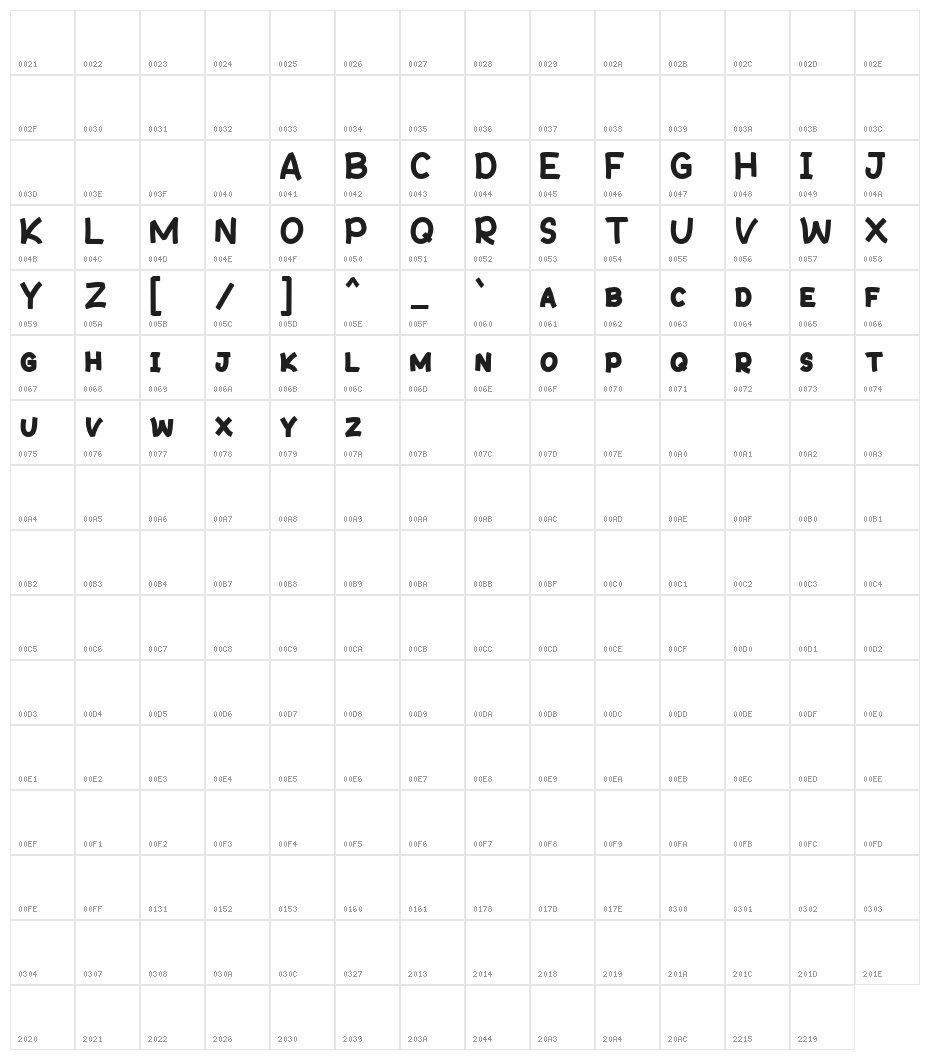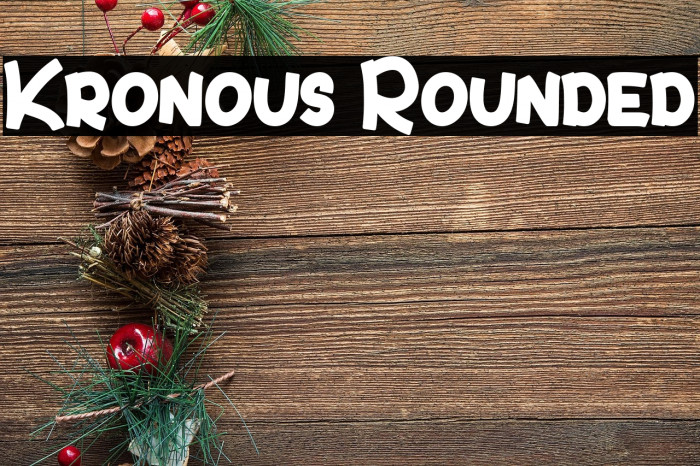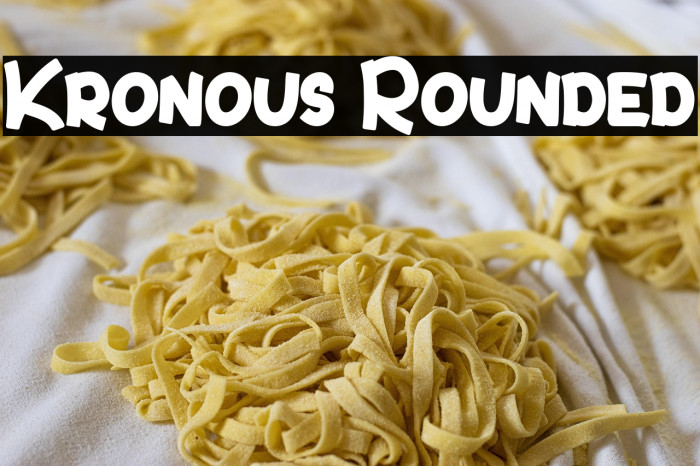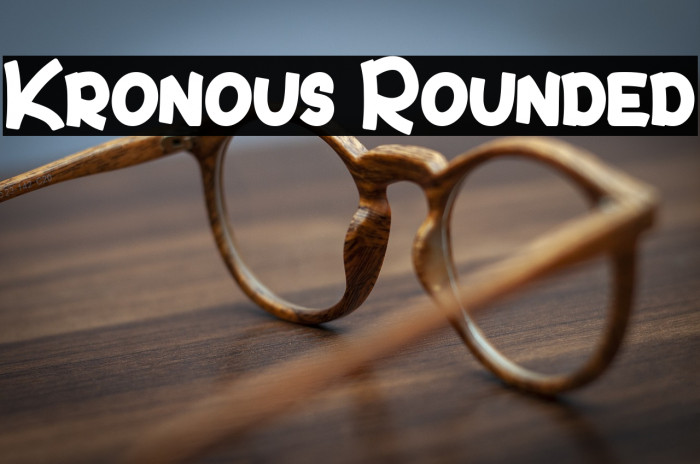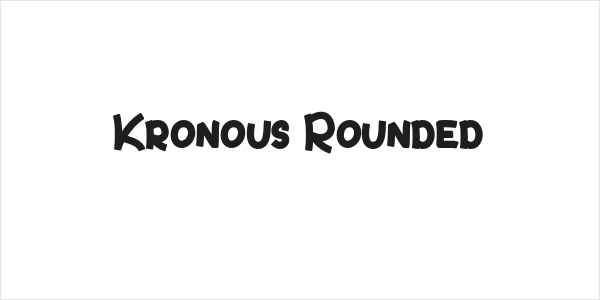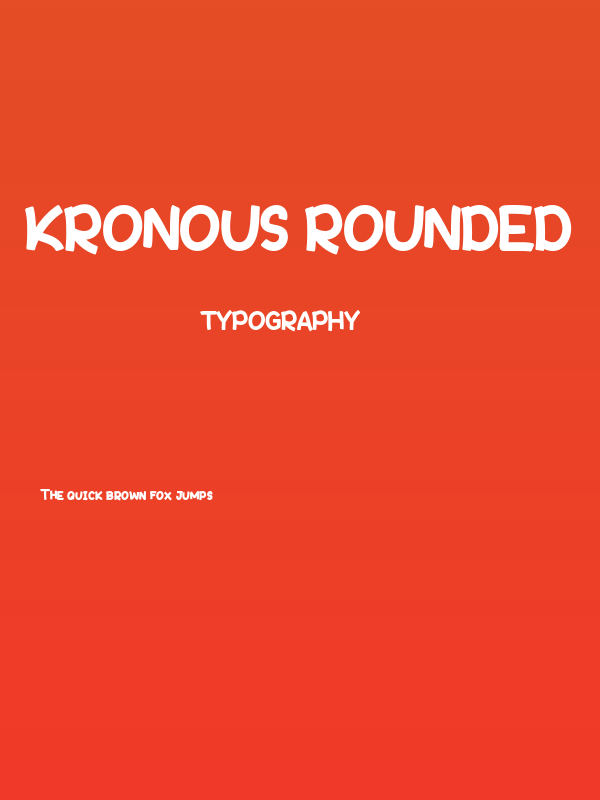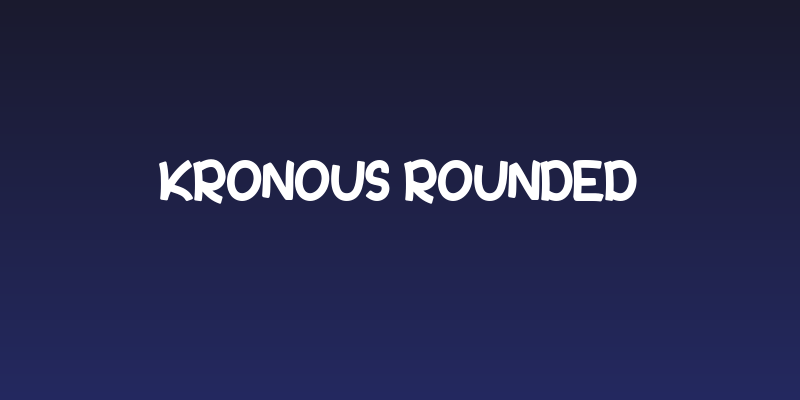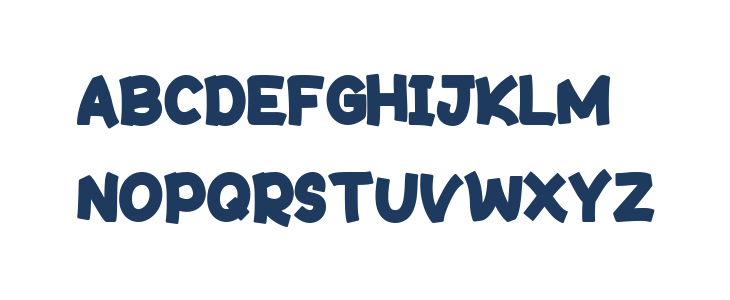
Kronous Rounded Font
Kronous Rounded Description
This font features a playful and bold design with rounded edges, giving it a friendly and approachable appearance. The letters are uniformly thick, contributing to a consistent and cohesive look across all characters. The style is reminiscent of hand-drawn lettering, which adds a personal and informal touch. The rounded corners soften the overall aesthetic, making it suitable for projects that require a warm and inviting feel. The uppercase letters are prominent and well-defined, ensuring readability while maintaining a unique character. This font is ideal for creative projects where a casual yet impactful style is desired.
| Overall Style | Playful, Casual |
| Proposed Projects | Ideal for children's books, playful branding, casual invitations, and creative posters. |